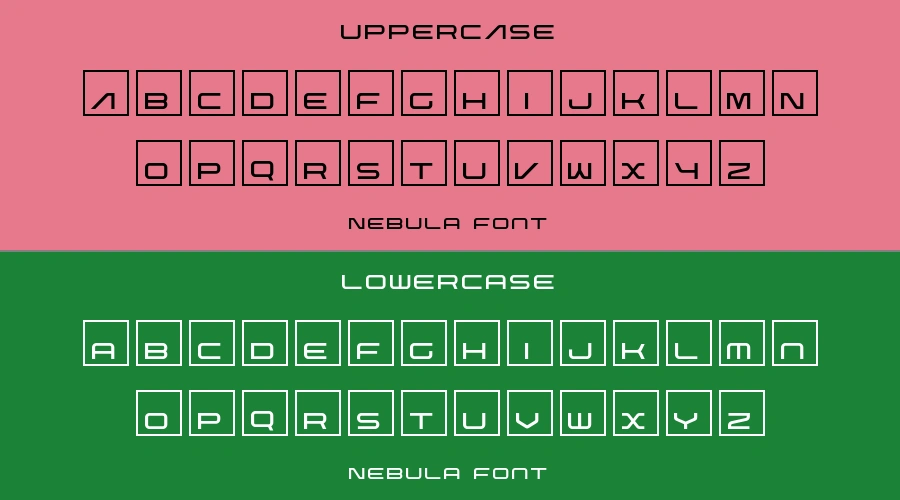
About Nebula Font
When typographic excellence matters most, Nebula Font delivers through its thoughtful blend of ornamental details and clarity. Specially crafted for magazine layout, it offers the memorability and market relevance required for sophisticated design work. Every detail serves a purpose.
The character set showcases thoughtful details like playful elements alongside functional arrow sets. This proves especially valuable in historical documents, where scalability directly influences results. Particular attention was paid to spur details and artistic merit during development.